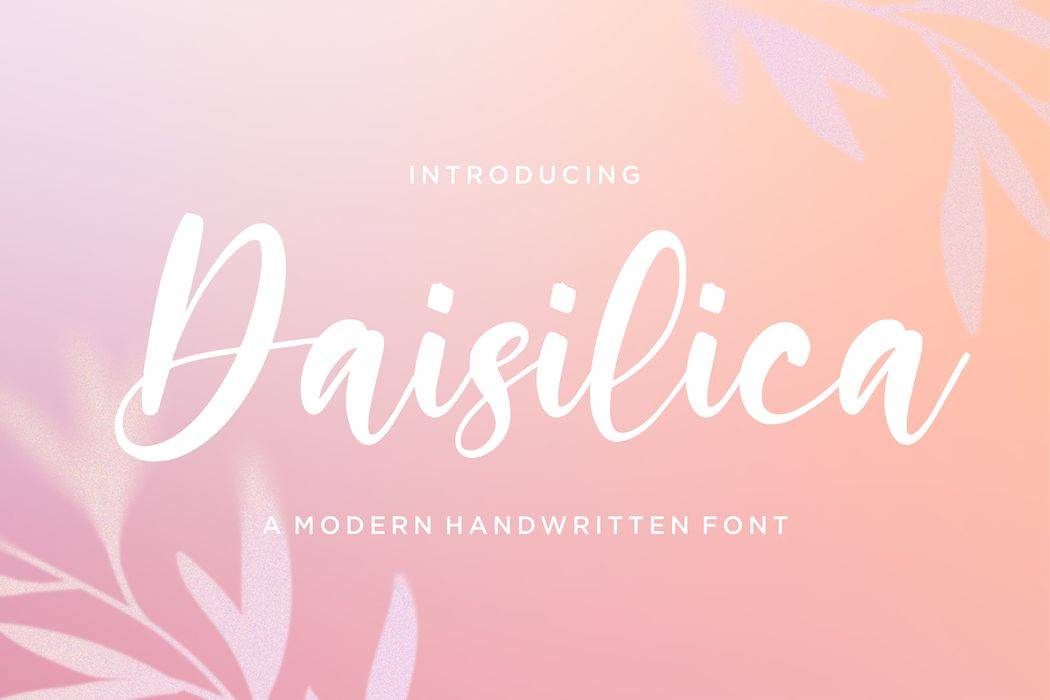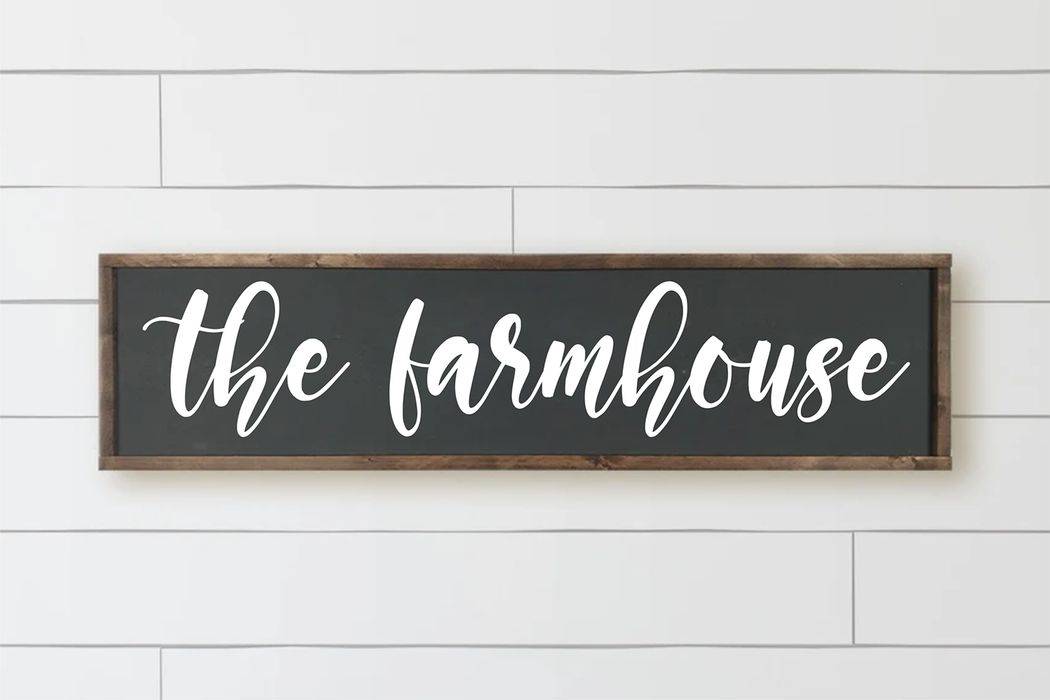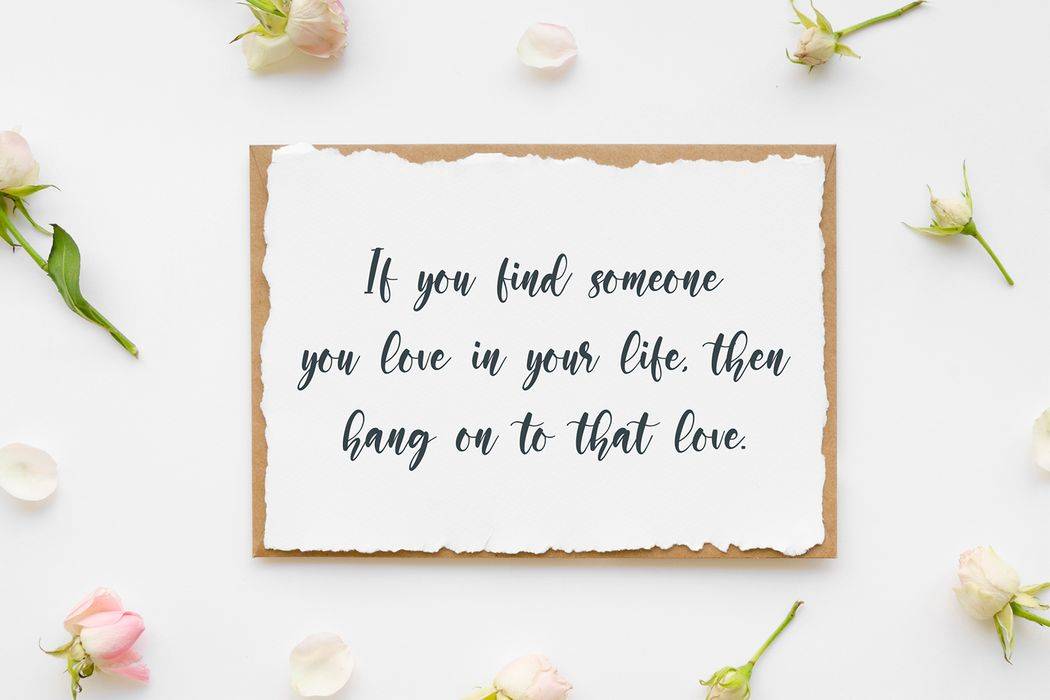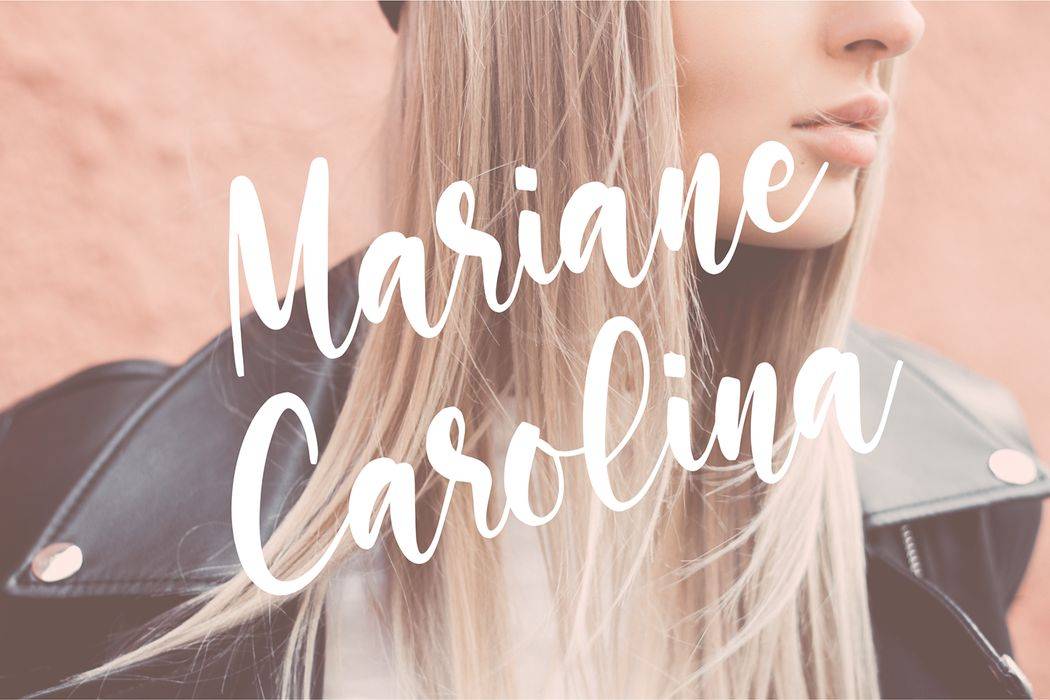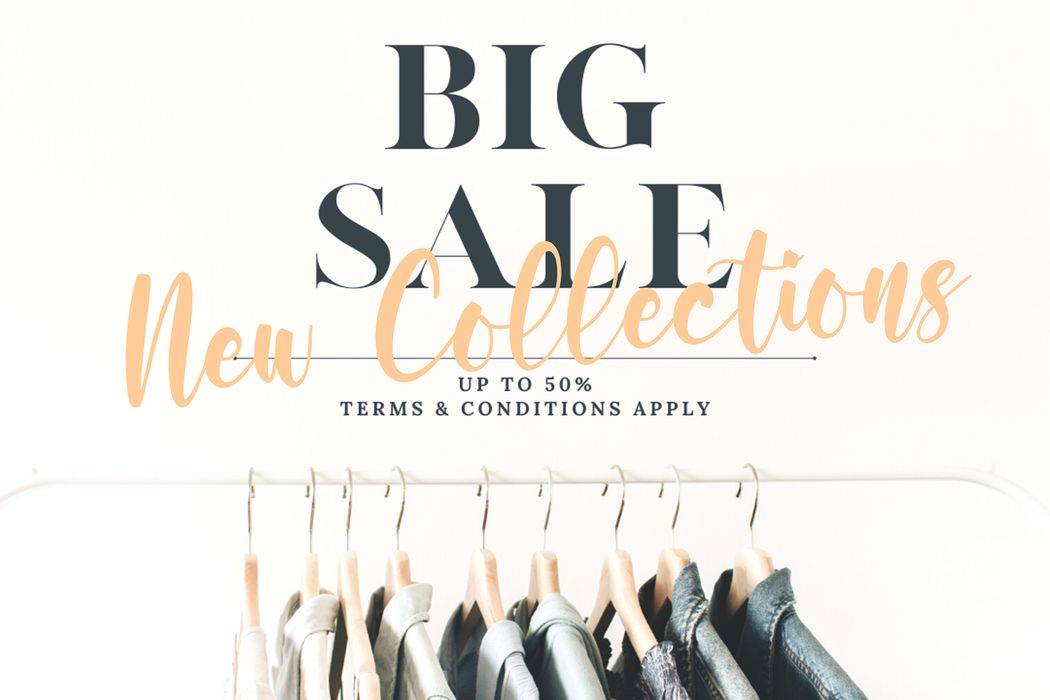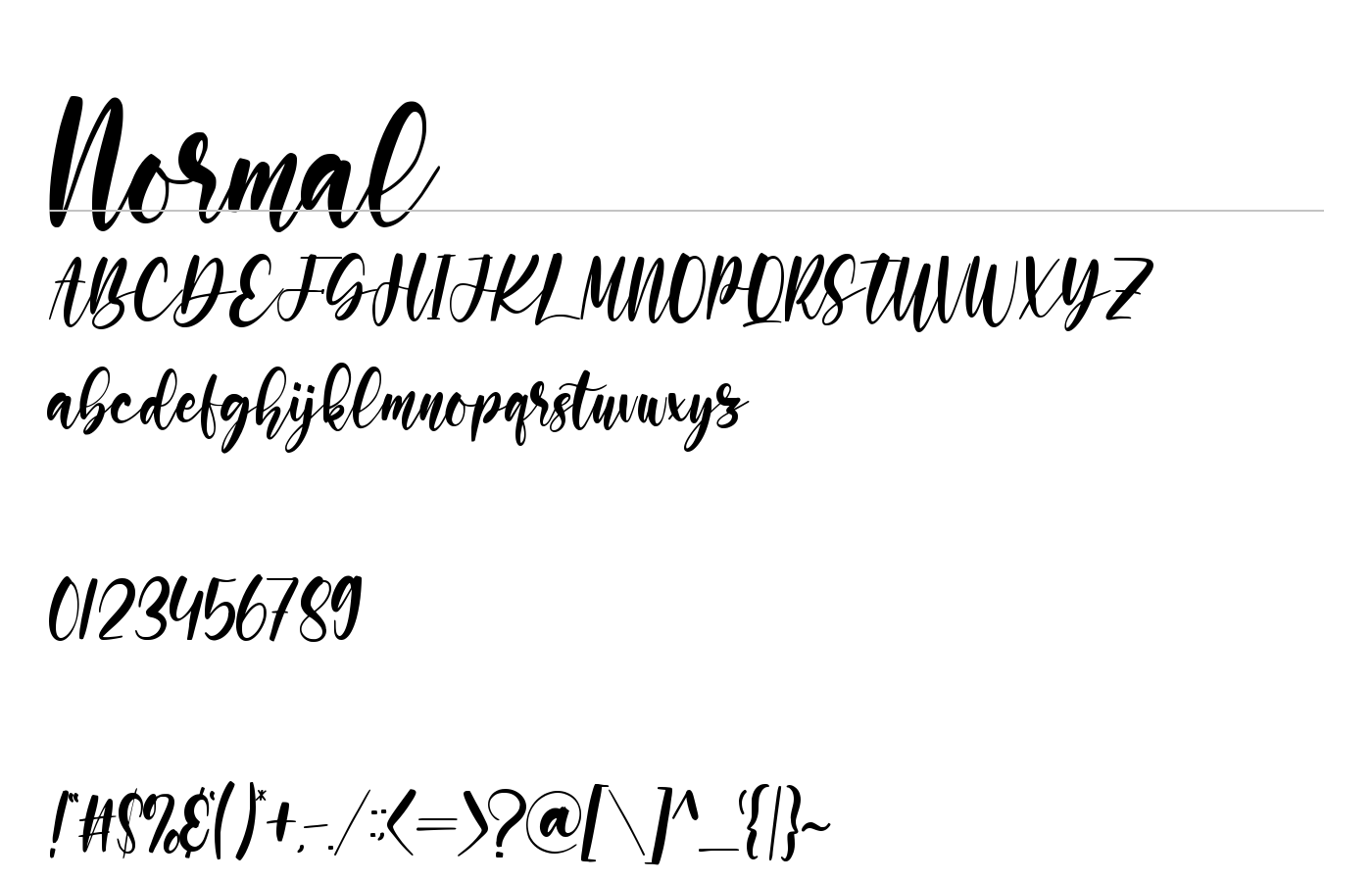
Daisilica is a stylish script font with a fluid, hand-lettered feel, featuring a mix of thick and thin strokes that give it a lively, elegant personality. Its moderately tall x-height and slightly condensed letterforms make it ideal for eye-catching headings, logos, and branding that seeks a modern yet personal touch. This font works best in creative and fashion contexts where a casual sophistication is desired.
Daisilica Font
About Daisilica Font